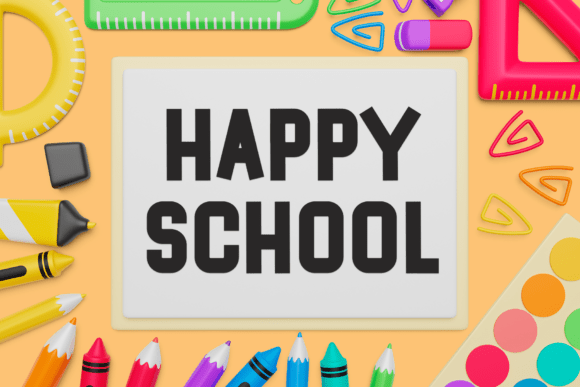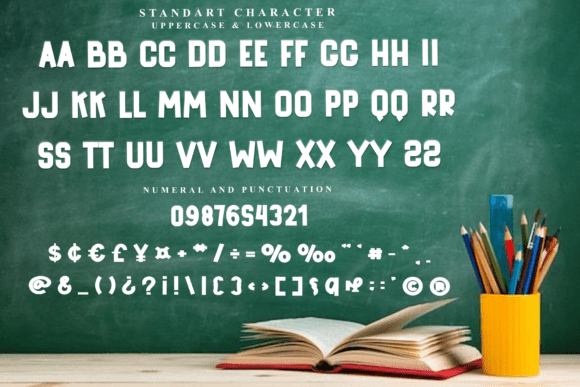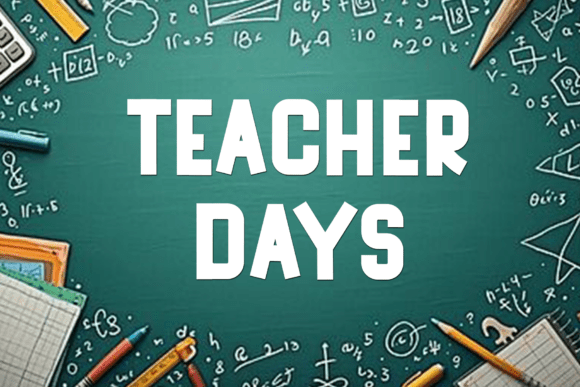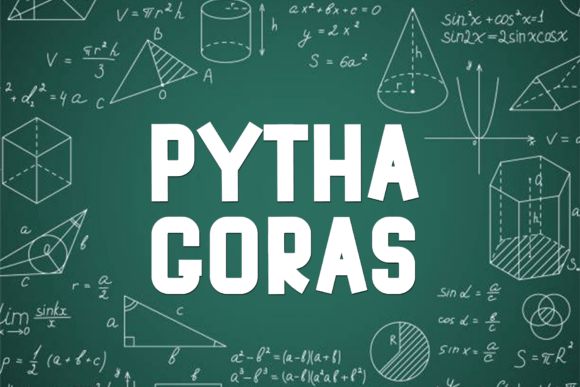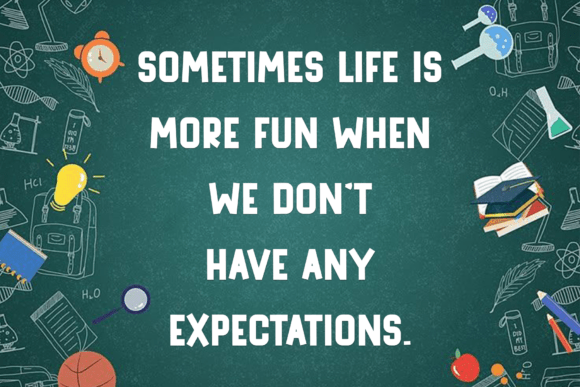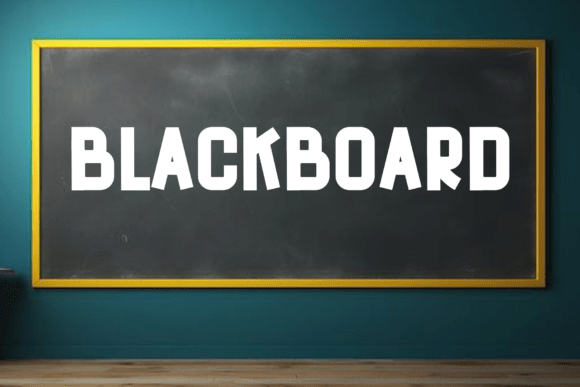
Introduction to School Varcity Font
Have you ever sat down to work on a creative project, surrounded by twinkling lights and the warmth of the holiday season, only to be stuck on finding the perfect font to capture the magic of the moment? I know I have. That’s why I’m excited to introduce you to the School Varcity Font, a high-quality design resource that’s sure to bring a touch of whimsy and wonder to your holiday-themed projects.
With its decorative elements and playful flair, the School Varcity Font is the perfect addition to any designer’s toolkit. Whether you’re creating greeting cards, gift tags, or other holiday-themed designs, this font is sure to add a touch of enchantment to your words. And the best part? It’s available for free download, making it a valuable resource for designers on a budget.
Key Features of School Varcity Font
- Unique, modern design suitable for creative projects and educational materials
- High-quality font with transparent background for seamless integration into designs
- Includes a range of characters, including uppercase and lowercase letters, numbers, and symbols
- Designed to be highly legible and readable in a variety of font sizes and resolutions
- Supports resolutions up to 300 DPI, making it ideal for print and digital applications
- Perfect design resource for students, teachers, and designers working on educational projects
Honest Review: School Varcity Font
I recently had the chance to work with the School Varcity Font, and I must say it’s been a pleasant experience. This font is perfect for any creative project that requires a clean and modern aesthetic. It’s free to download, which is always a plus in my book.
- What works well: The School Varcity Font is incredibly versatile and works well in a variety of contexts. The high quality of the font ensures that it looks great on both light and dark backgrounds, and the transparent background option is a great touch.
- What works well: The font’s modern design makes it perfect for any project that requires a touch of sophistication. Whether it’s a logo, a brochure, or a website, the School Varcity Font is sure to impress.
However, there are a few limitations to keep in mind. The font may not be suitable for projects that require a lot of bold or dramatic text, as it can come across as a bit too clean and minimalist.
- Limitations: ⚠️ The School Varcity Font may not be suitable for projects that require a lot of bold or dramatic text.
Overall, I’m really impressed with the School Varcity Font. It’s a high-quality design resource that’s perfect for any creative project. With its free download option and transparent background, it’s a great addition to any designer’s toolkit.
Tips for Getting the Most Out of School Varcity Font
For the best results, use the School Varcity Font on a transparent background to give your designs a clean and modern look. Experiment with different font sizes and styles to add visual interest to your project.
The School Varcity Font is perfect for:
- Social media graphics and advertising